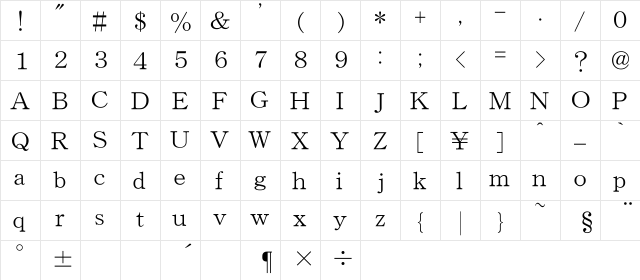
HGSeikaishotaiPRO Medium Font Preview
HGSeikaishotaiPRO Medium
Design Context for HGSeikaishotaiPRO Typeface
HGSeikaishotaiPRO offers clean, dependable letterforms without strong stylistic allegiance, making it a practical choice for designers who need flexibility.